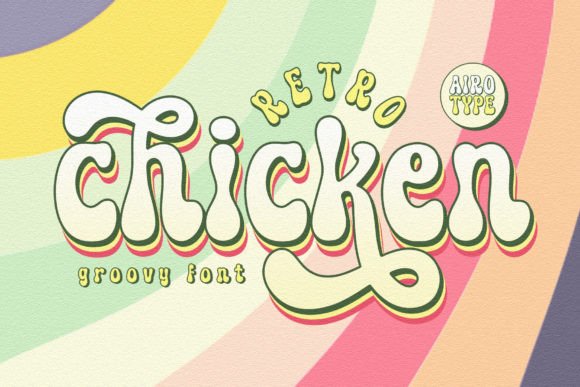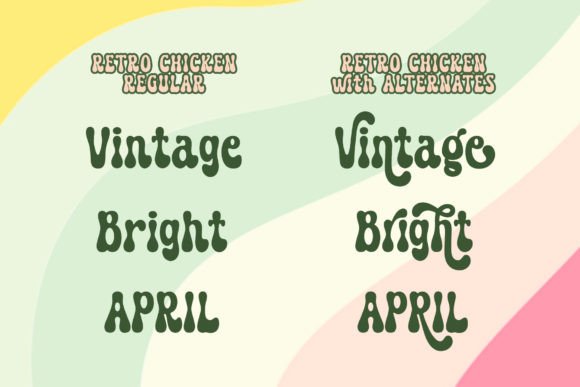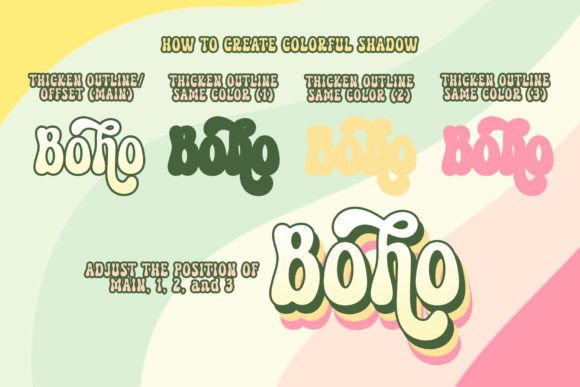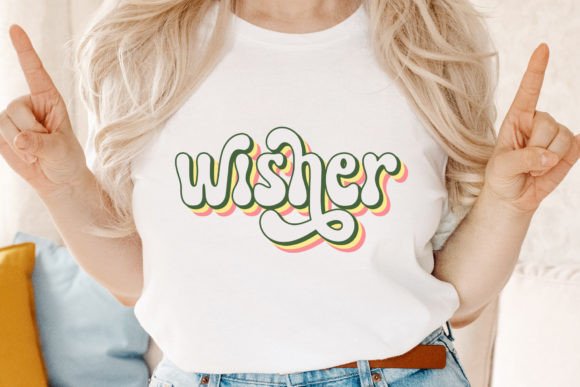
Retro Chicken Font: A Playful Vintage Display Font for Cricut & Crafts
About the Retro Chicken Font
From logos to headlines, the Retro Chicken Font is the perfect choice for making a lasting impression. Retro Chicken is a fun and cute retro font. It has a playful style with a vintage touch.
This font is pretty for any project with a fun and vintage style, such as logo, crafting, t-shirts, branding, stickers, sublimation, quotes, greeting cards, and many more.
Retro Chicken excels in display applications such as logos, headlines, short taglines, and packaging where its playful nature shines. It’s ideal for brands targeting a younger demographic or those with a vintage, nostalgic aesthetic. However, its quirky character and relatively large x-height make it unsuitable for extended body text or UI elements where readability is paramount.
Consider pairing Retro Chicken with a clean sans-serif like Montserrat for a balanced contrast, or a more geometric sans-serif like Futura for a modern twist. A classic serif like Garamond could also work well, providing a sophisticated counterpoint to the font’s playful energy. Avoid pairing it with other highly decorative or overly stylized fonts to prevent visual clutter.
The overall personality of Retro Chicken is fun, friendly, and nostalgic. Its retro styling evokes a sense of warmth and playfulness, making it perfectly suited for projects needing a touch of vintage charm.
Retro Chicken Font Usage Examples
Retro Chicken Font Example